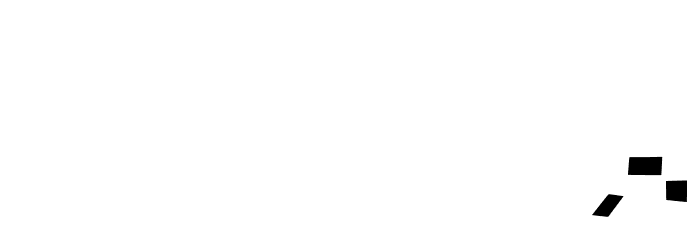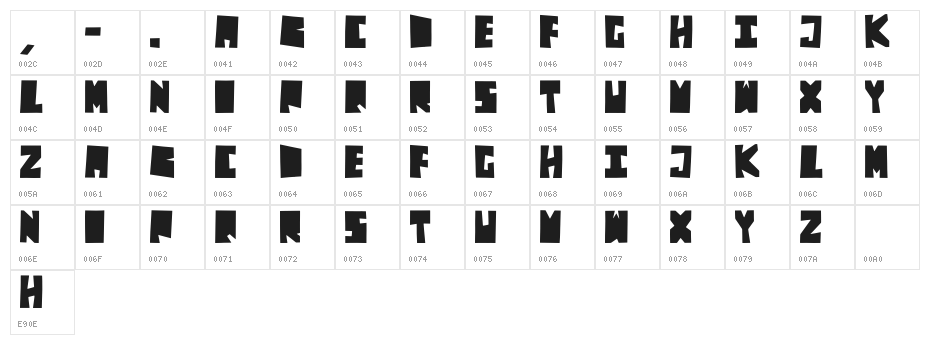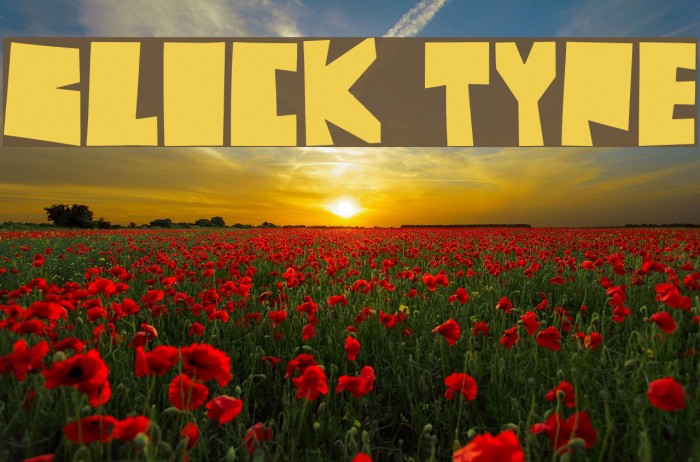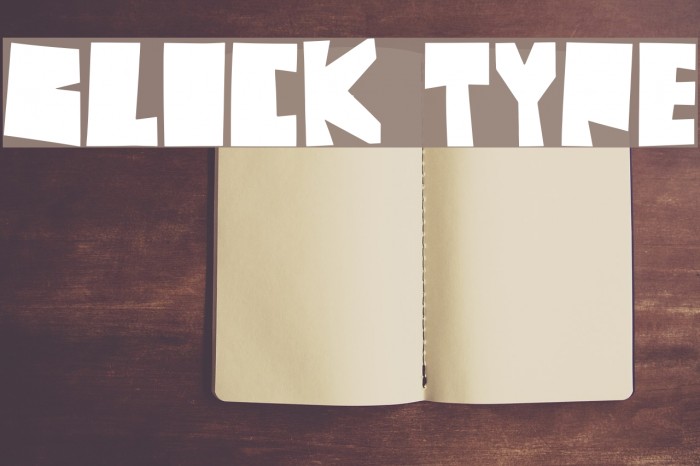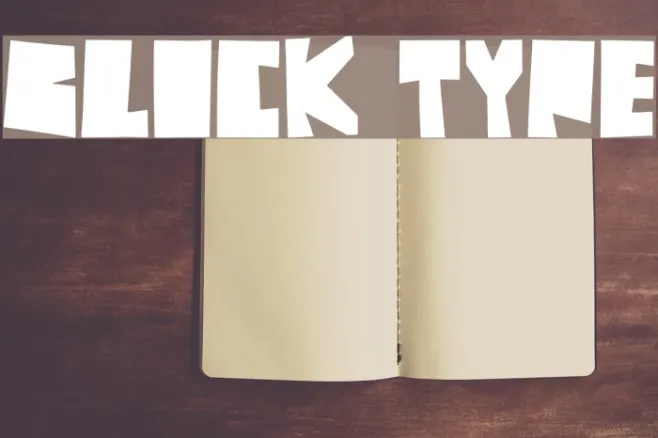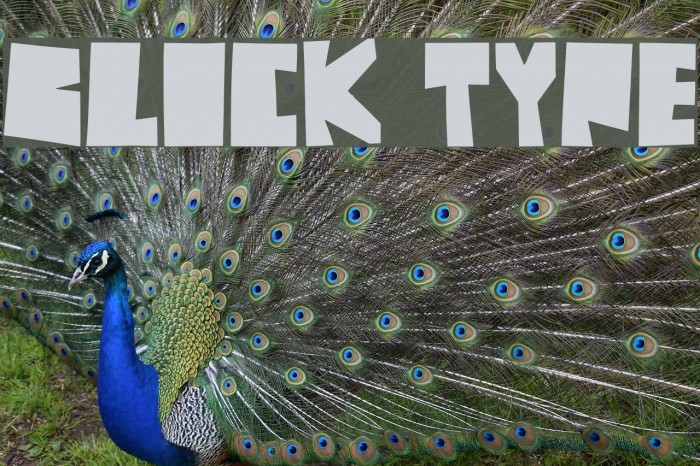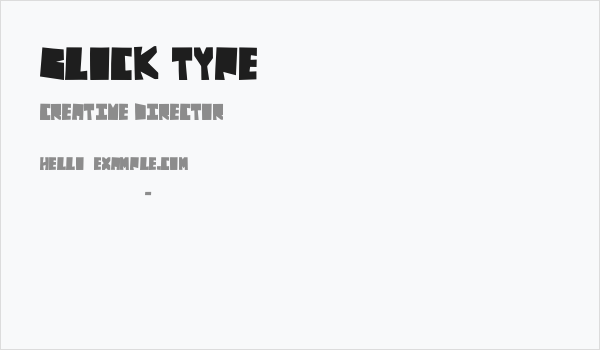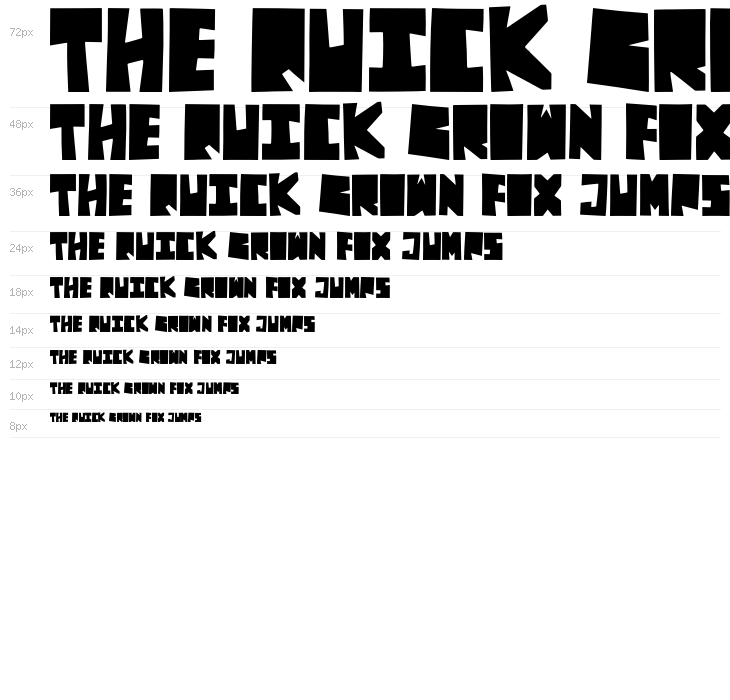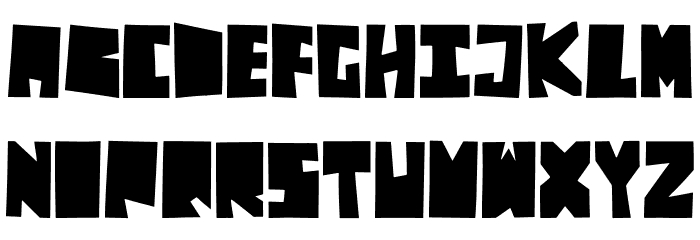
Block Type Font
Block Type Description
This font features a bold, angular design with a distinctly geometric and blocky appearance. Each character is crafted with sharp edges and a uniform thickness, creating a strong visual impact. The uppercase letters are particularly striking, with a consistent height and width that emphasizes their boldness. The font lacks curves, opting instead for straight lines and sharp angles, which contribute to its modern and edgy aesthetic. The overall style is reminiscent of graffiti or street art, making it ideal for projects that require a bold and unconventional look. The characters are tightly spaced, enhancing the compact and cohesive feel of the font.
| Proposed Projects | Perfect for street art designs, urban-themed posters, edgy branding, and eye-catching headlines. |